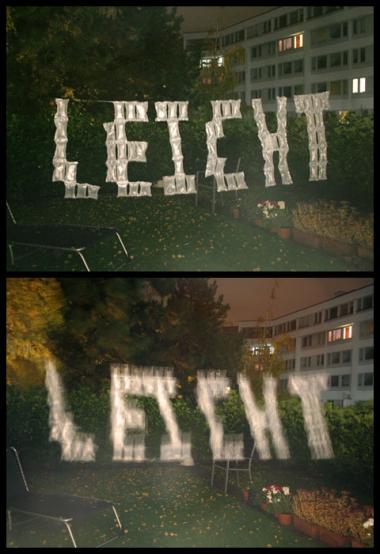
That's the original work and the inspiration for this font.
(The 'I' isn't monospaced in the sample)
Wonderful sample. Some eccentric choices (M,I,W) – I guess determined by the monospacing. I like the result.
Yes, I agree. The 'I' in the sample is much better and the 'M' and 'W' could just be 5x5. It also does have some more wired constructions as I didn't want to use the most obvious forms (best example is the 'E') and wanted to endorse the stability. Thank you meek!
2 -difficult- rules of design (max width & cohesion), good job! Incomplete 4x5-based font (the lowercase would be less legible).